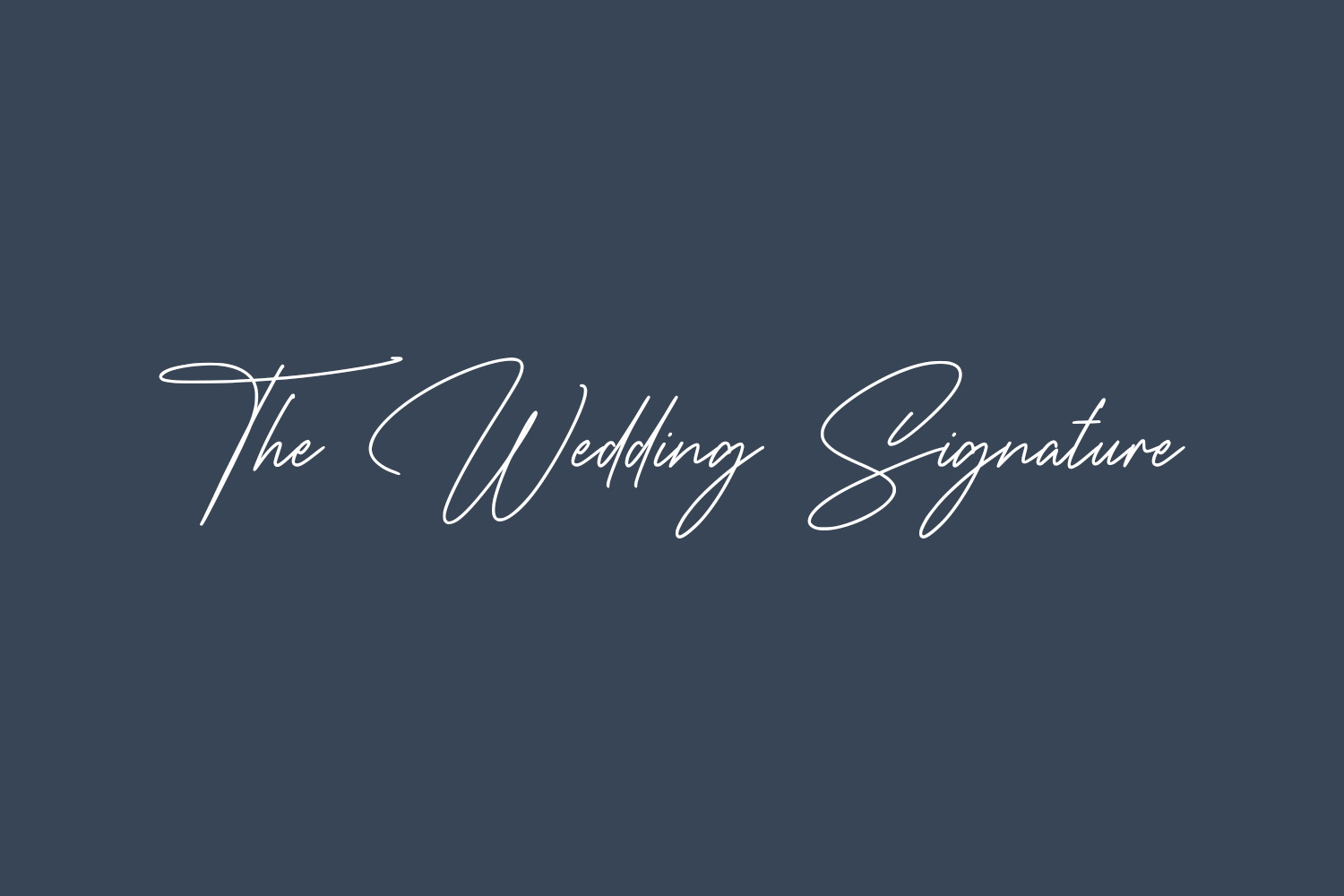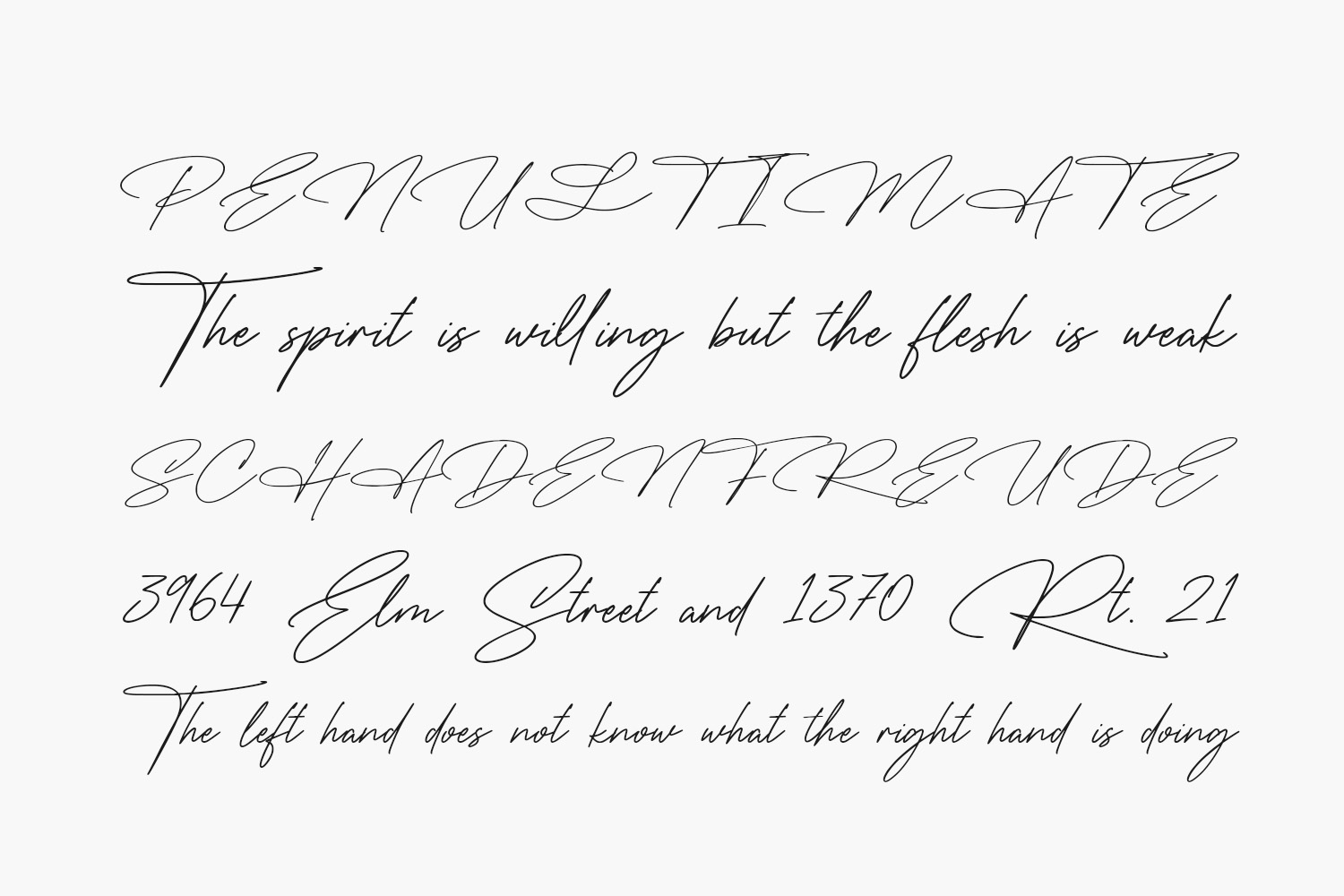
Experience the elegance of The Wedding Signature Free Font, a dazzling script font meticulously crafted with intricate details. This font is a valuable addition to your font library, ready to elevate and enhance any creation across various topics. Unlock its potential and infuse your projects with a touch of refined sophistication. The Wedding Signature Free Font was designed by Nirmana Visual and is free for personal use only. Please purchase the full version for commercial use.
Designed by Nirmana Visual